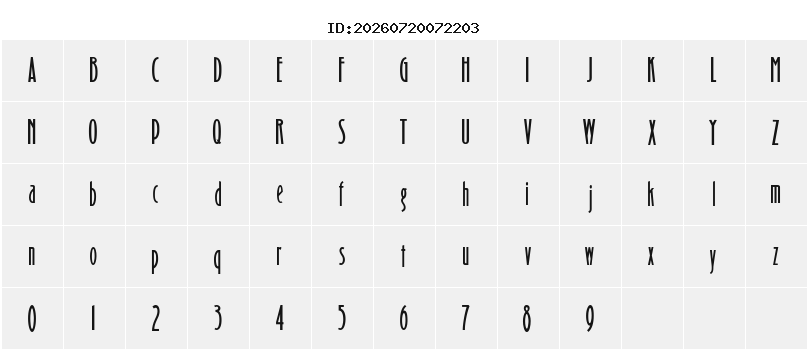
• Font Name: ft16
• Font Style: Gothic
• Full Font Name: ft16 Gothic
• Manufacturer: FT Content Provider
About ft16.ttf
ft16.ttf is a modern, elegant sans-serif font designed for ultimate readability and visual harmony. Perfect for branding, headlines, web design, and print materials.